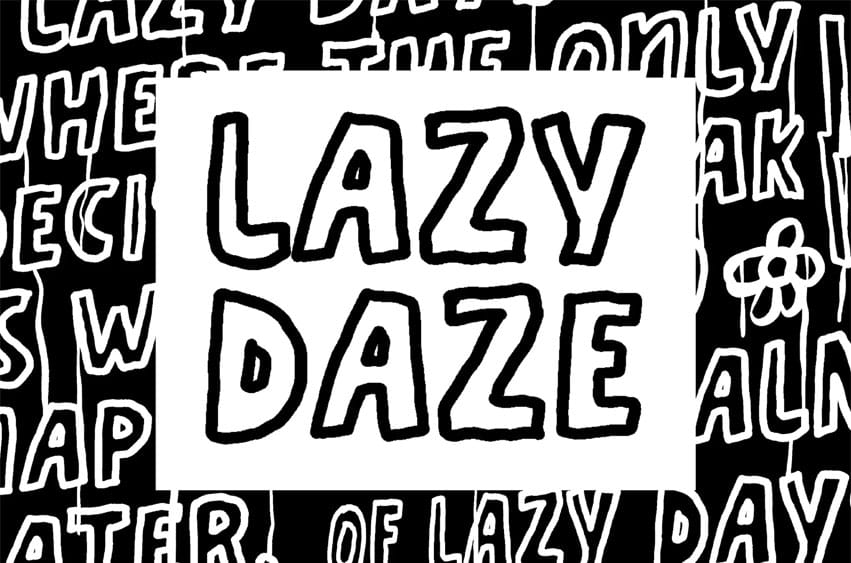
Lazy Daze Font
Lazy Daze Font carries a playful and organic character. Its hand-drawn letterforms are bold yet irregular, giving it a casual, approachable feel. The uneven strokes and slightly distorted outlines suggest spontaneity, as if sketched with a marker in a moment of relaxation.
From a scientific perspective, the font uses nonlinear contours and variable stroke widths, which enhance visual dynamism and prevent mechanical uniformity.